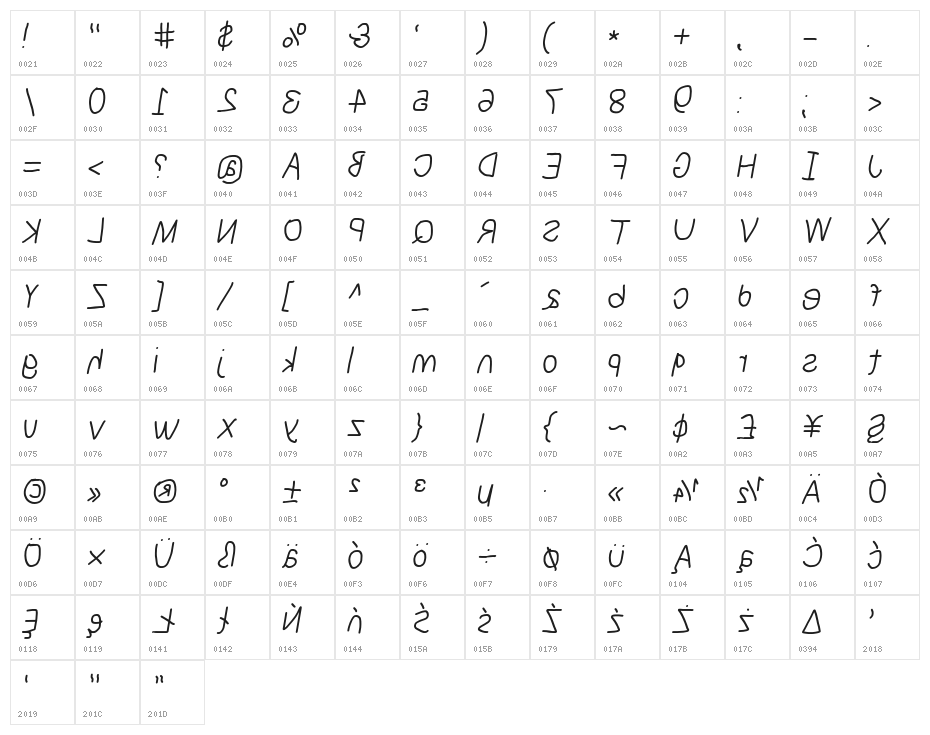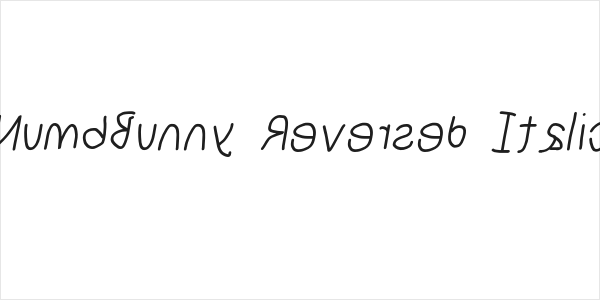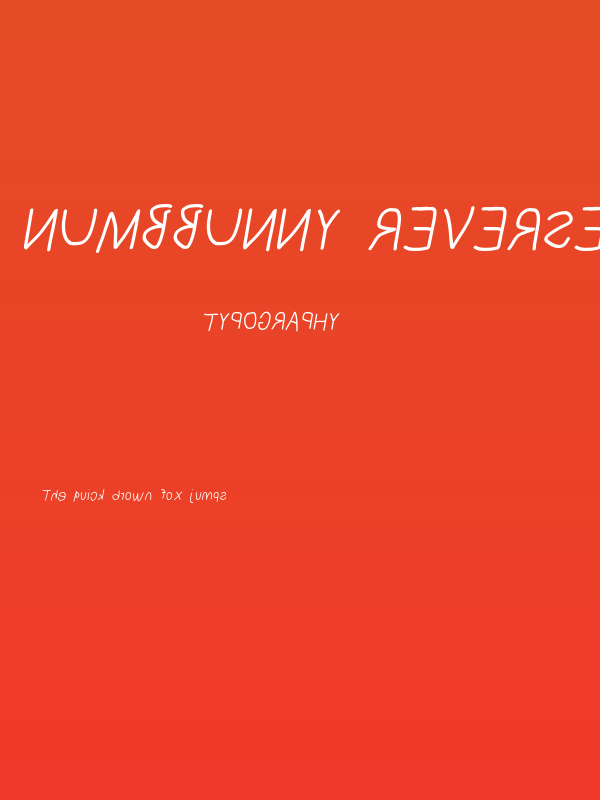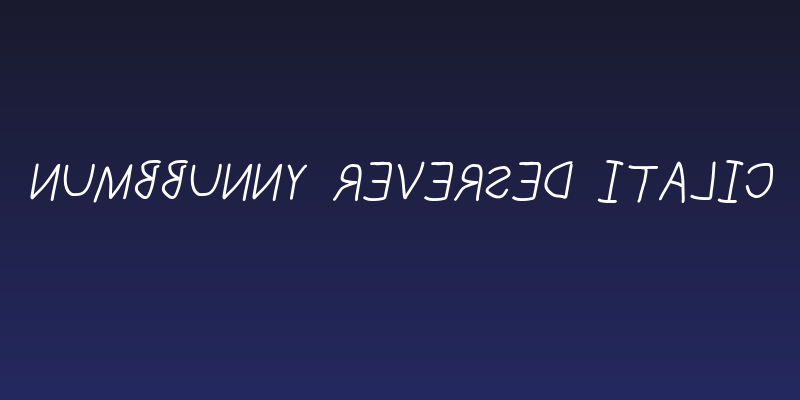
NumbBunny Reversed Italic Font
NumbBunny Reversed Italic Description
This font features a playful and quirky style with a reversed italic slant, giving it a unique and whimsical appearance. The characters are handwritten with a casual, informal feel, characterized by smooth, flowing lines and rounded edges. The uppercase and lowercase letters maintain a consistent style, while the numerals and special characters complement the overall aesthetic. The font's reversed slant adds an unexpected twist, making it stand out in creative projects.
| Proposed Projects | Ideal for creative projects such as children's books, playful branding, greeting cards, and artistic posters. |